If US Presidential Candidates Were Fonts
For this post, I wanted to find which fonts best match the 2016 presidential candidates. This list is not comprehensive. Instead, I used the current front runners and researched their defining qualities to match these with the font that best represents them. The pairings don’t reflect their physical characteristics, instead focusing on their personal traits.
I should mention that the pairings highlight the opinion of the media and popular articles/videos on the internet, since that is where the lion’s share of the research was done. I, of course, don’t know any of these candidates personally and tried to reflect only the results of my research and not personal biases.
Hillary Clinton
Font choice:Freight Display Pro SemiboldHillary Clinton
Hillary’s career guided this pairing; drawing from her start as a lawyer after an extensive education, which has fed into her many years as a dedicated career politician.
Keywords: Lawyer, educated, determined, experienced.
Bernie Sanders
Font choice:Prosto Sans BlackBernie Sanders
Prosto Sans matched Bernie Sander’s determined and idealist personality. It is an approachable font that is underpinned with clarity and quirkiness.
Keywords: Activist, progressivist, grassroot, non militant
Donald Trump
Font choice:American ChromaticDonald Trump
American Chromatic seemed to match more than just his personality, but also Trump’s patriotism and political views. He has captured thousands with the idea that political correctness has no place in our society. American Chromatic also fits Trump’s past experiences in entertainment.
Keywords: Businessmen, pompous, funny, personality
Jeb Bush
Font choice:Museo Sans Rounded 700Jeb Bush
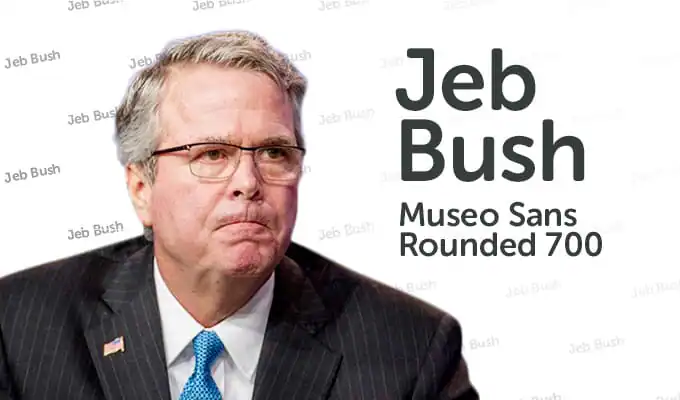
Museo, like the Bush family, is like a repeating work horse. They both carry forward their experiences and lessons, looking to shape their impression on their listeners. Furthermore, they have a familiarity that is easy to return to, but not always the best to return to.
Keywords: family, honest, legacy, experienced, nice
John Kasich
Font choice:Times New Roman ItalicJohn Kasich
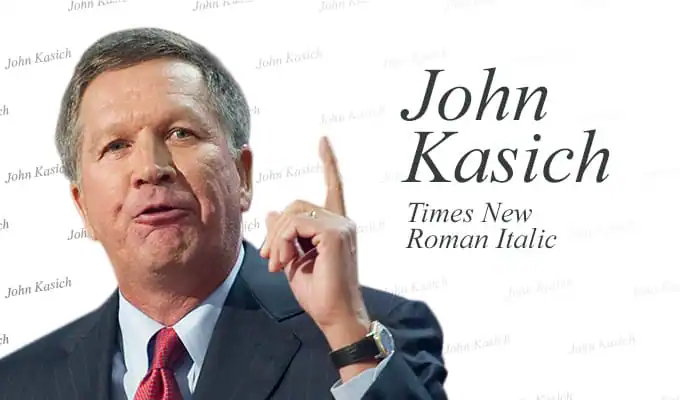
Kasich, like Times New Roman, is qualified, prestigious, well-crafted, and sometimes arrogant. Both could benefit from a vacation.
Keywords: Qualified, by-the-book, blunt-spoken, arrogant
Ted Cruz
Font choice:Ubuntu LightTed Cruz
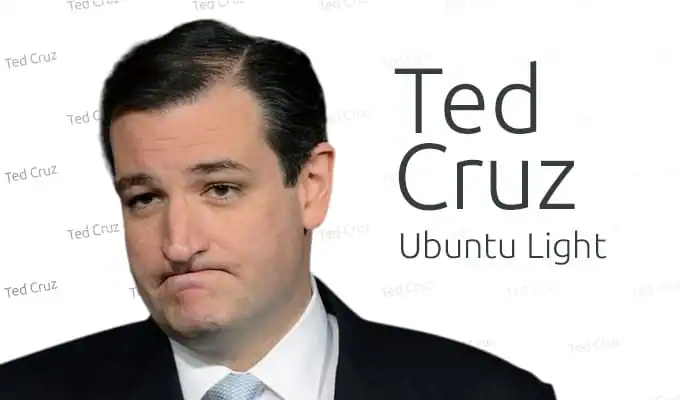
With hard edges and sharp corners, Ubuntu seemed like the ideal match for Ted Cruz, a fiercely conservative, and stubbornly focused individual.
Keywords: Focused, stubborn, intelligent, conservative
• Politics aside. You mentioned "fonts", but I'm only seeing a presentation of typefaces. Was there a difference in the glyph collection that was specific to the candidate? 11 years ago
• Times New Roman is "goofy"? 11 years ago
• I agree with @Darin Clark. The Republicans photos are much goofier and commentary seem very biased. I was hoping for a fair article. ☹️ 11 years ago
• Anonymous
Blessing CM 11 years ago
• This "unbiased" post is no-doubt as "unbiased" as the mainstream media used to "research" this editorial. "It is easier to fool people, than to convince them they have been fooled." ~ Mark Twain 11 years ago
• ^^Agreed 11 years ago
• Hi @Liane Lum @Darin Clark We'd love to have your voice & pairings in the blog. Anyone up for a Republican Candidate Fonts roundup? 11 years ago
• It's too bad that some of us still can't find the maturity to be politically tolerant even on this great site. Love this post. Thanks! 11 years ago
• ^^ How very "politically tolerant" of you to post a comment challenging the maturity of a handful of thoughts that clearly differ from your own. Hmm... 11 years ago
• Sorry Larque you misunderstood me, or rather maybe I wasn't clear enough... 11 years ago
• Donald Trump should be Comic Sans—I'm scared for the world. 11 years ago